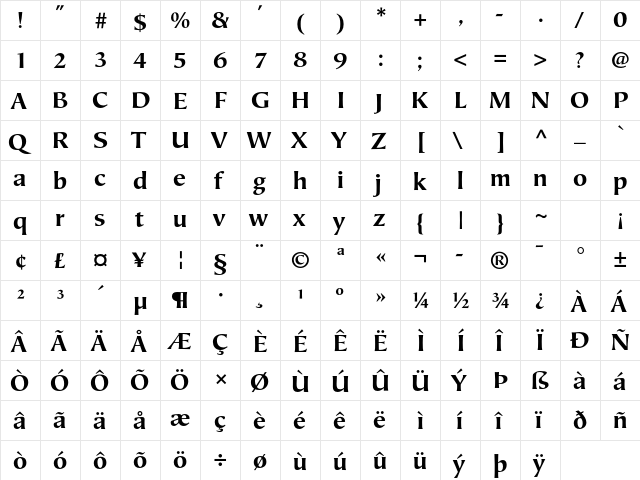
Mariposa Sans Std Bold
| Foundry | International Typeface Corporation |
| Designer | Philip Bouwsma |
Design Context for Mariposa Sans Std Typeface
Mariposa Sans Std is a composed and adaptable typeface that performs quietly and consistently across a wide range of design contexts. The heavy weight commands attention and anchors typographic hierarchies.